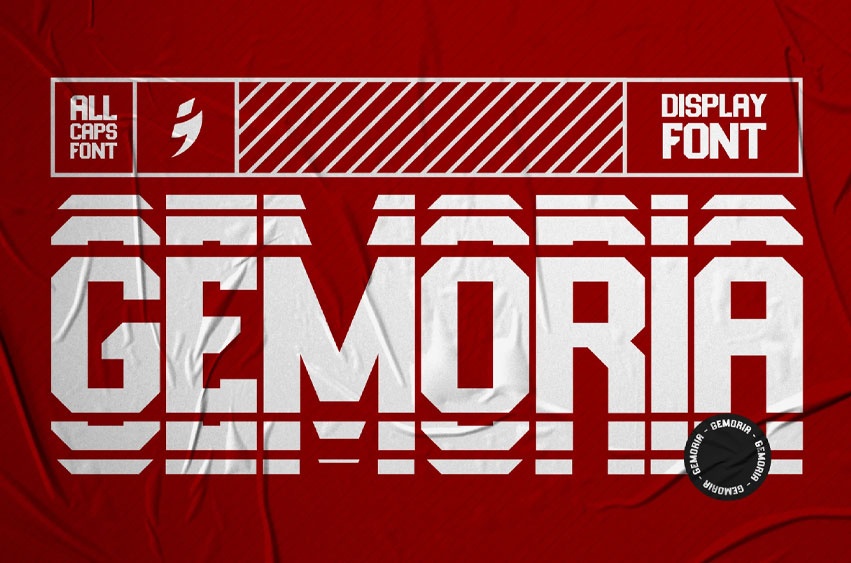
Gemoria All Caps Font
Gemoria All Caps Font is an awesome sports font with modern cutouts, and a dynamic slant. Ideal for sports titles, football matches, cycling, automotive game logos, and monograms or other modern dynamic text.
Gemoria compares favorably with legibility and size, creating the effect of power. Designed as a fast and dynamic font, but with a slightly different font design, check it out and grab it right away.